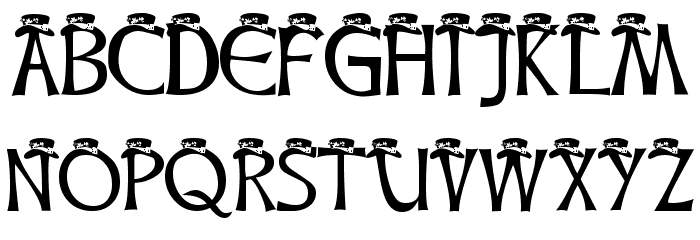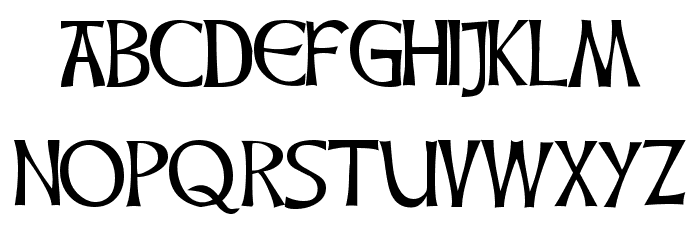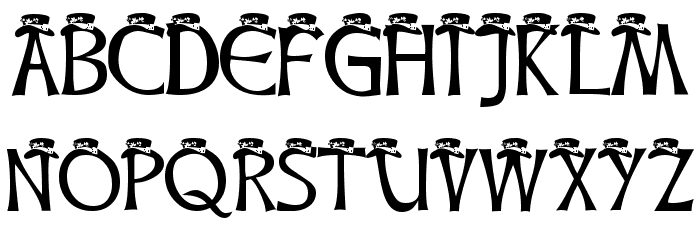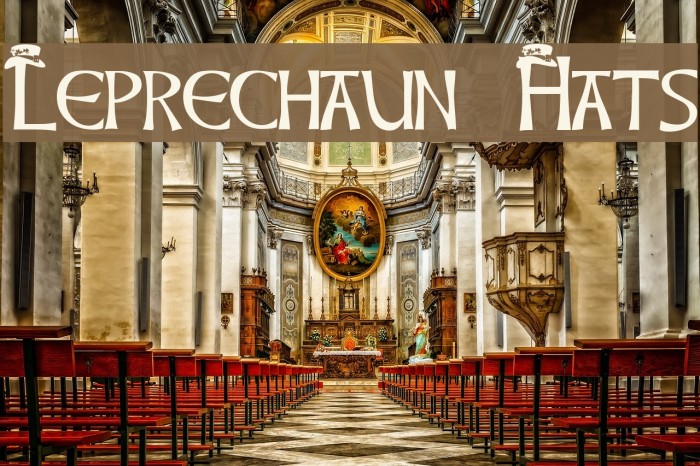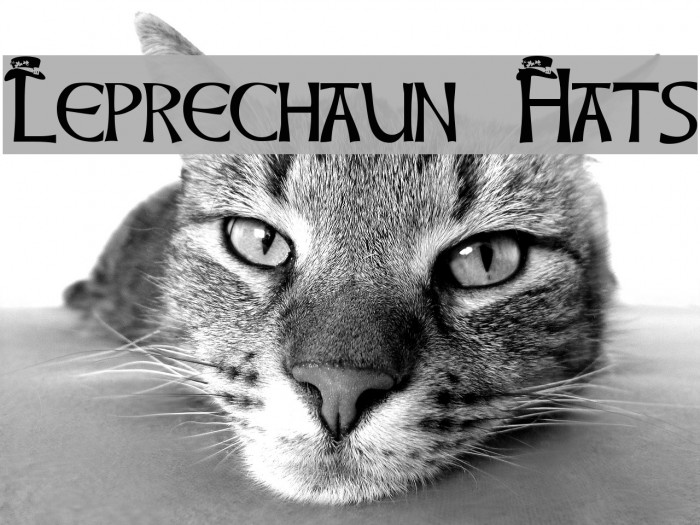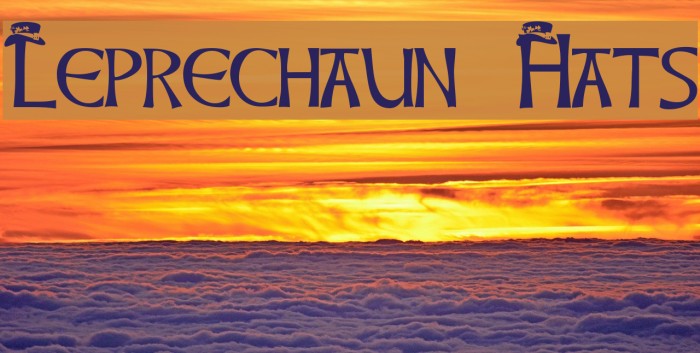
Leprechaun Hats Font
This whimsical font features playful leprechaun hats adorning the top of each character, adding a festive and unique touch. The letters are bold and slightly condensed, with a distinctive flair that captures attention. The uppercase characters are consistent in style, while the lowercase letters maintain the same playful theme. The numbers and special characters also follow this design, ensuring a cohesive look across all elements. This font is perfect for themed projects, particularly those related to St. Patrick's Day or other Irish celebrations. Its decorative nature makes it ideal for headlines, posters, and invitations, where a touch of fun and creativity is desired.
A whimsical, decorative font featuring leprechaun hats on each character, perfect for festive projects.
- Proposed Projects: Ideal for St. Patrick's Day promotions, themed invitations, festive posters, and playful branding materials.
- Use Case: Headlines, Posters, Invitations